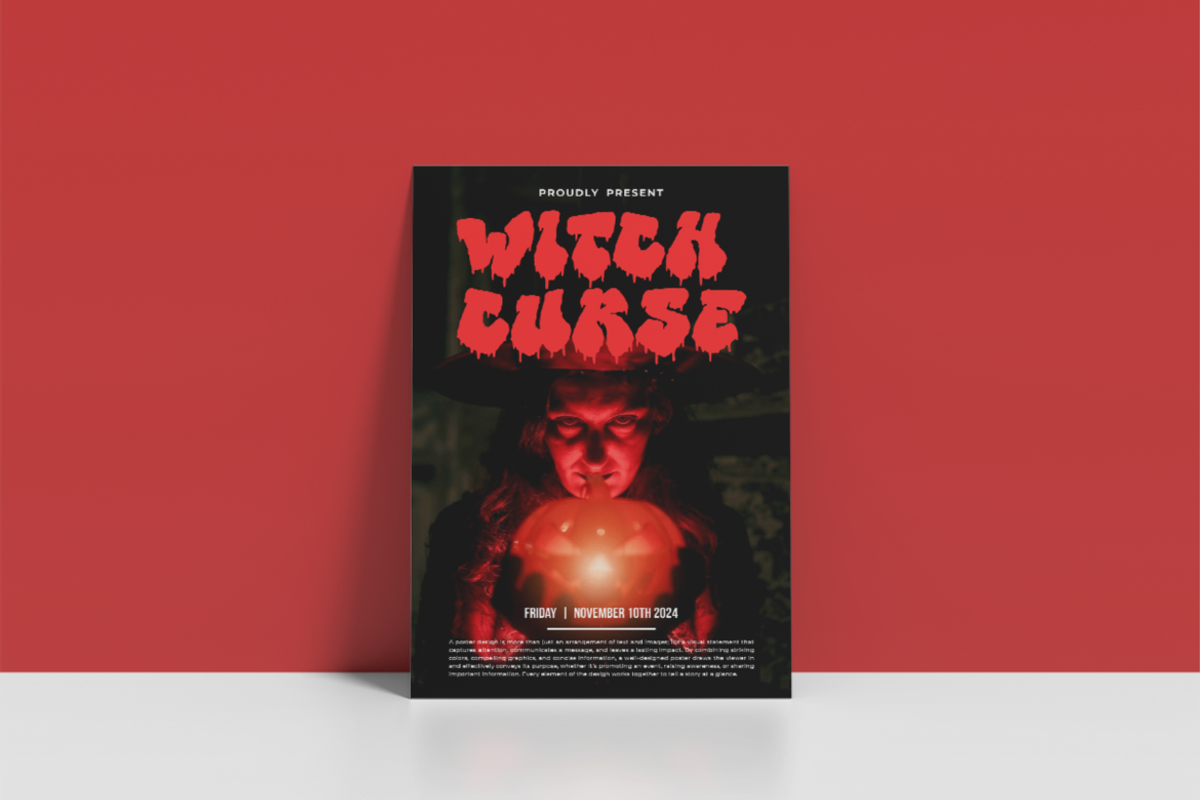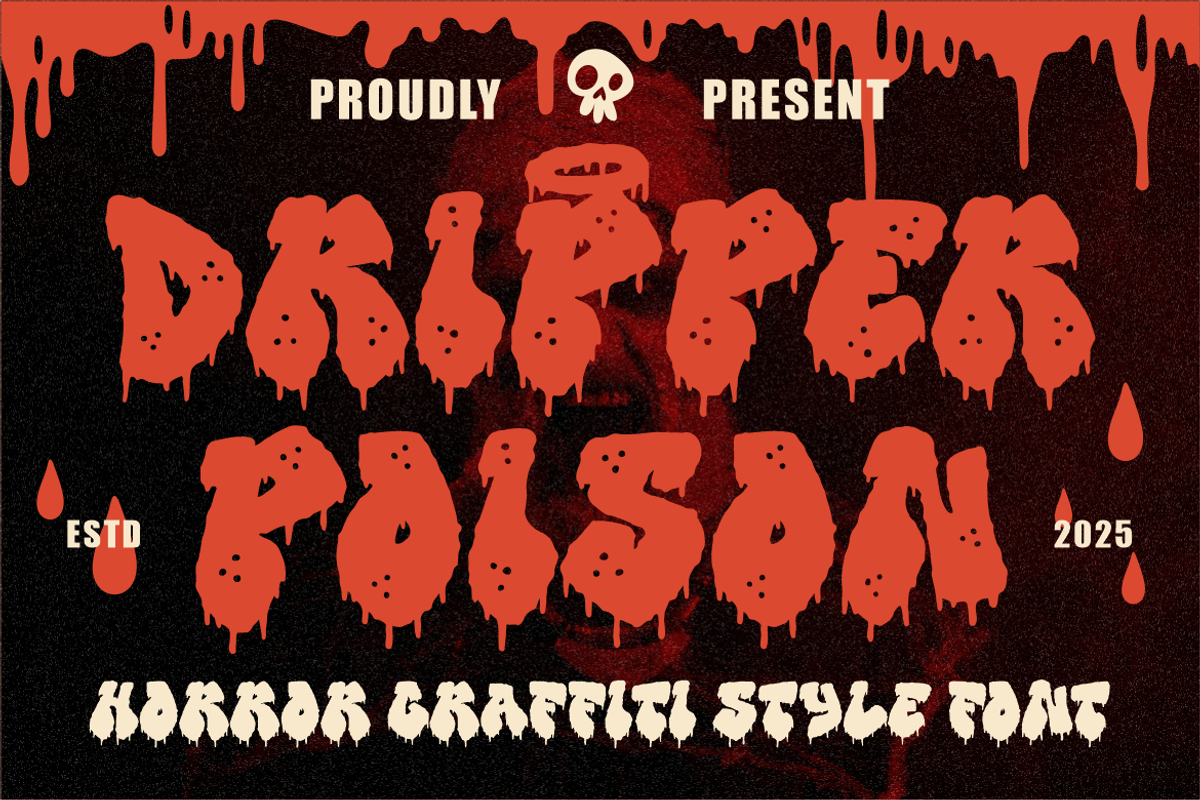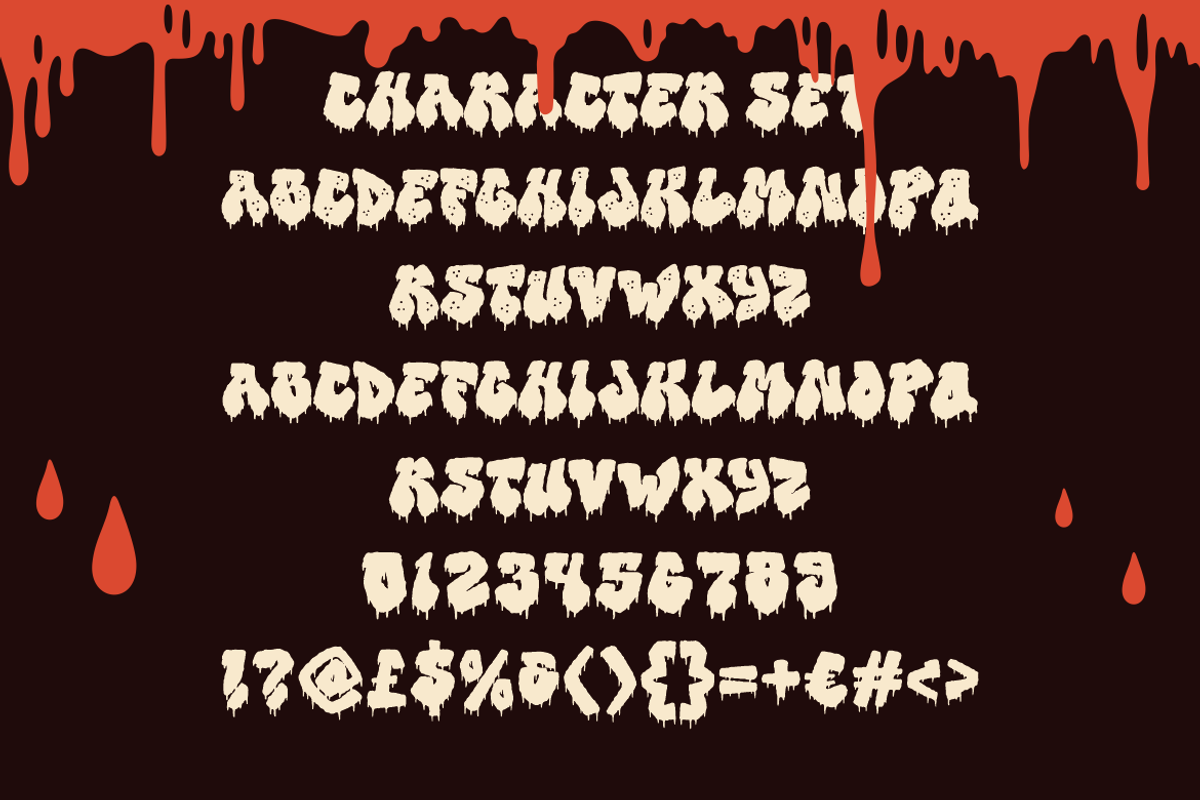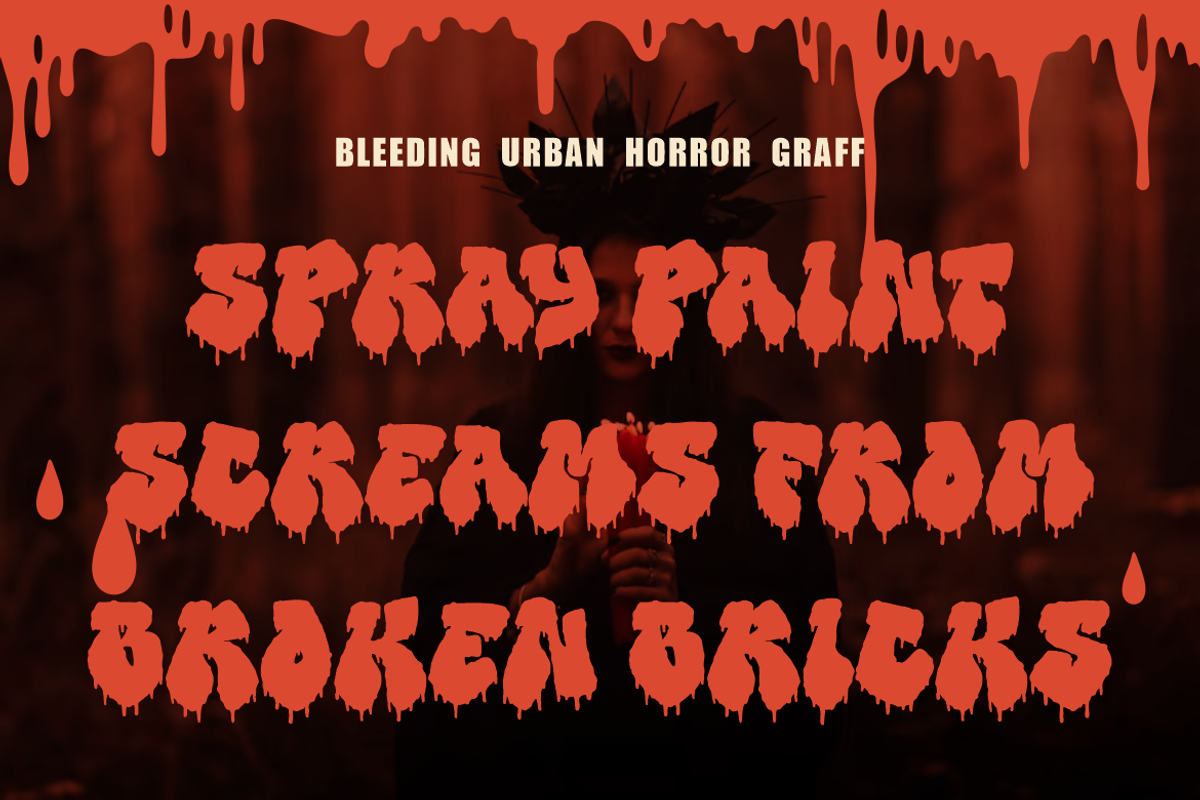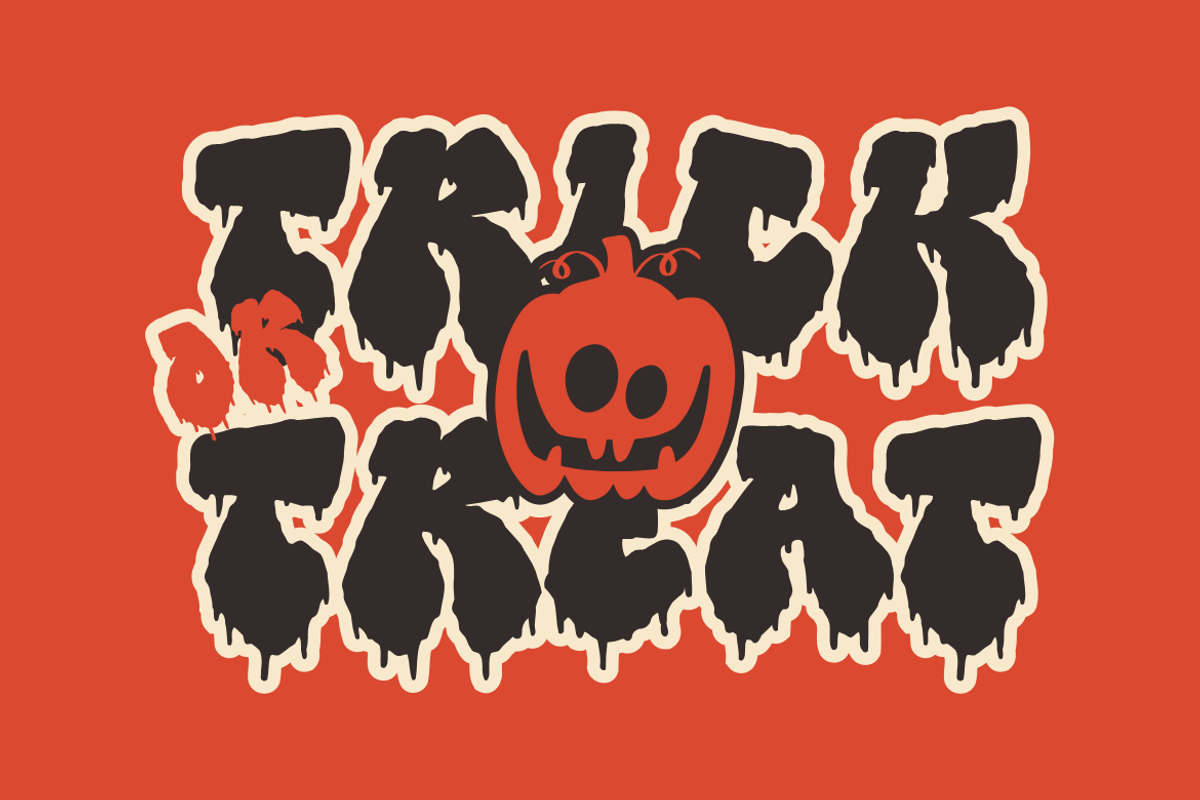
Dripper Poison Horror Graffiti Font
Dripper Poison is a horror graffiti font that combines the raw energy of street art with eerie, dripping details. Each letter is crafted with thick, bold strokes and uneven edges, as if painted hastily with spray paint that bleeds into the surface. The drips at the bottom of every glyph create a sense of decay and menace, making it ideal for horror, Halloween, or thriller-themed designs. Its style bridges the worlds of creepy alley graffiti and urban hip hop, delivering a gritty yet artistic look. The font includes uppercase, lowercase, numbers, punctuation, and special symbols, ensuring creative flexibility for your projects.
Perfect for posters, branding, logos, stickers, packaging, movie titles, or any design needing a spooky urban vibe, Dripper Poison works well in both print and digital media. Whether you’re creating a Halloween party flyer, a horror movie poster, or edgy streetwear branding, this font brings a raw, fear-inducing impact that grabs attention instantly. Its bold shapes and high-contrast design ensure maximum legibility while keeping the dripping horror aesthetic intact.